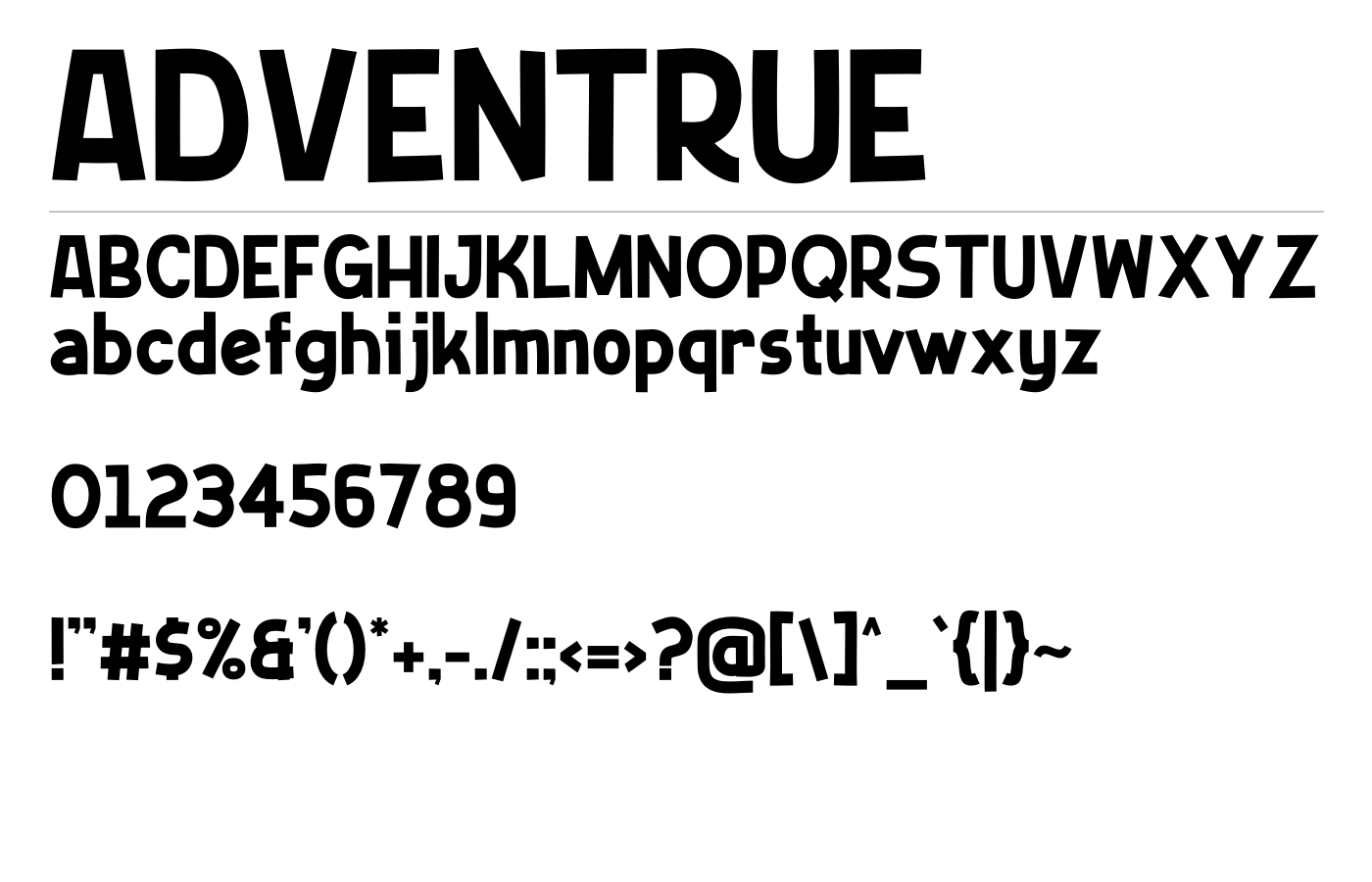
ADVENTRUE is a bold, playful sans serif font with slightly irregular, hand-crafted letterforms that give it a friendly and approachable vibe. Its sturdy, medium-width characters and open shapes make it highly legible, ideal for headlines, logos, and branding that want to convey adventure, creativity, and fun. This font works especially well in casual, youthful, or outdoor-themed designs where energy and personality are key.
ADVENTRUE Font